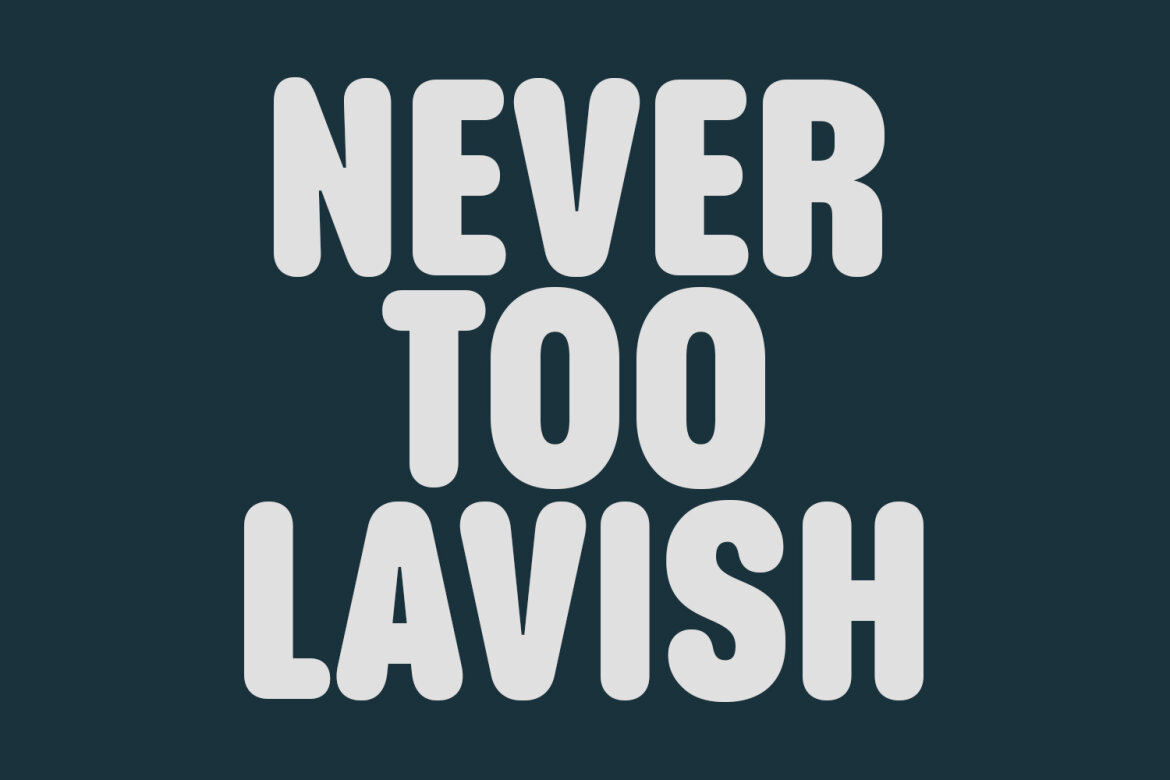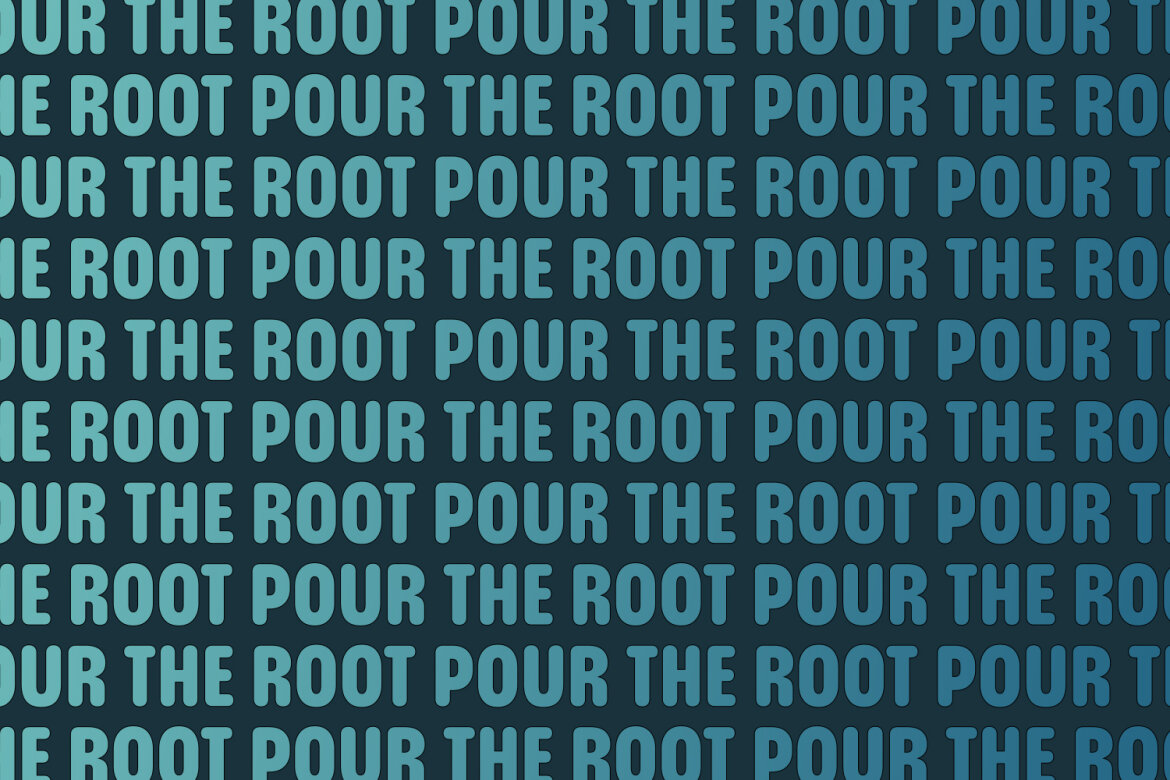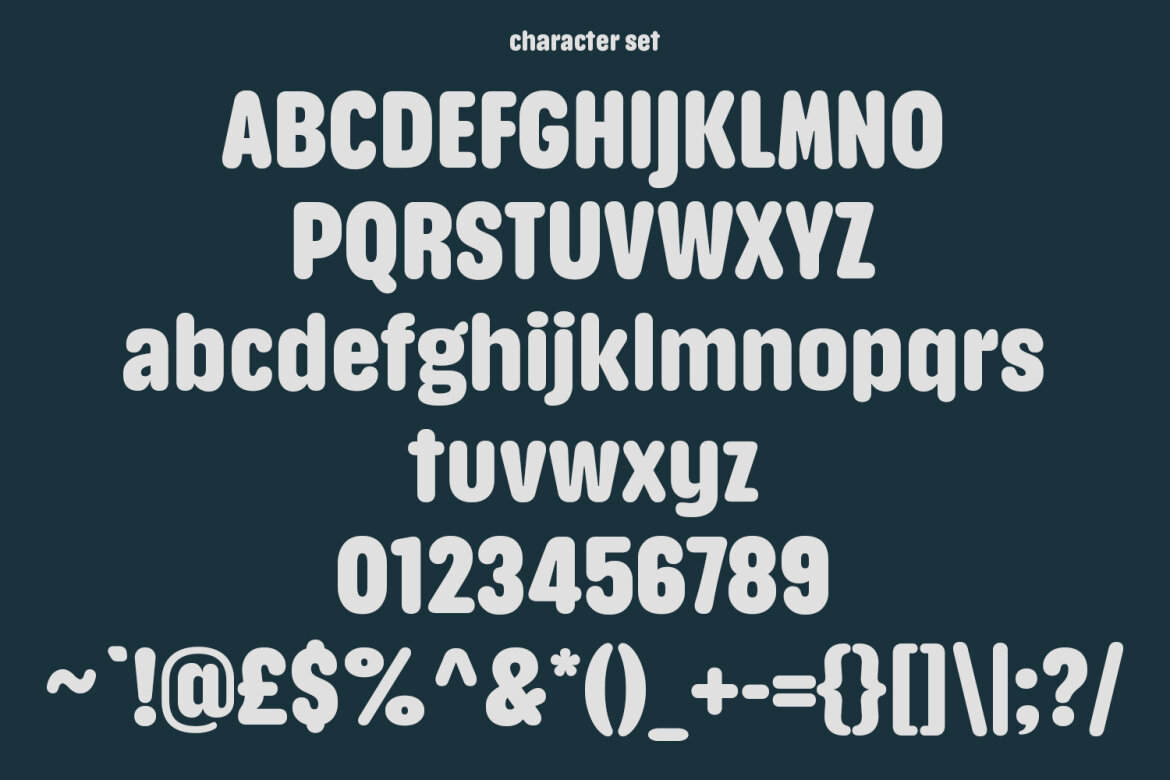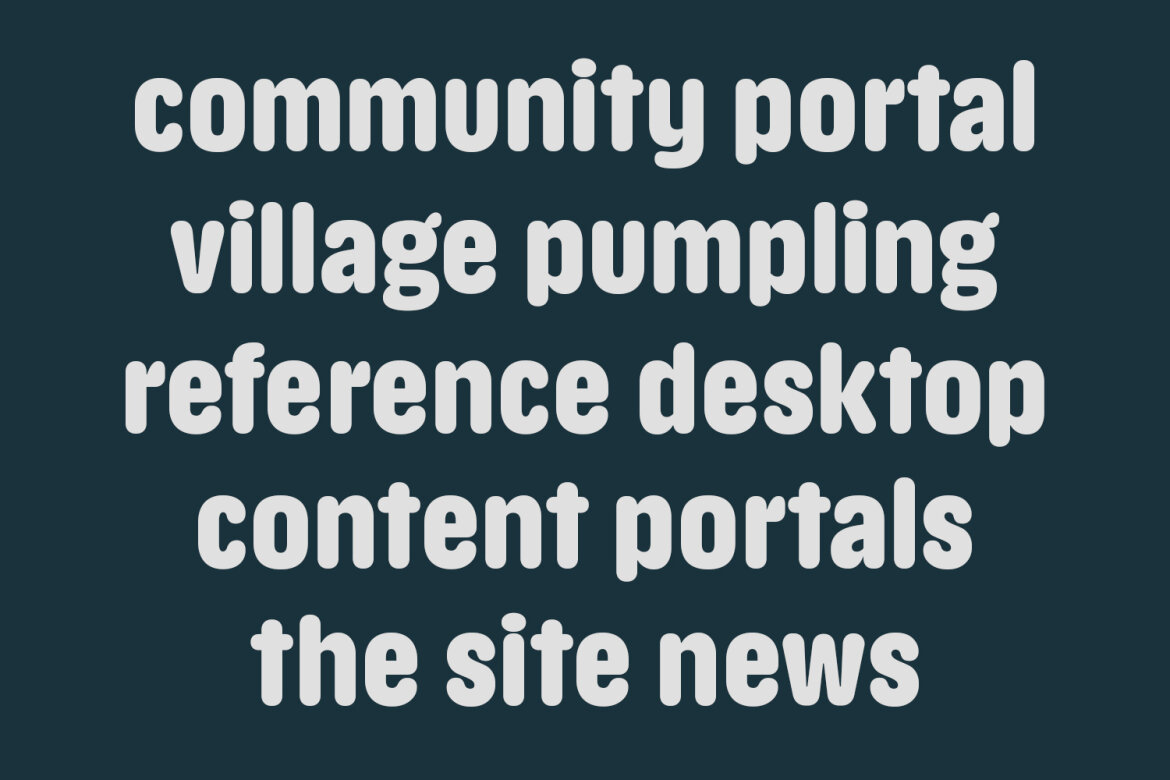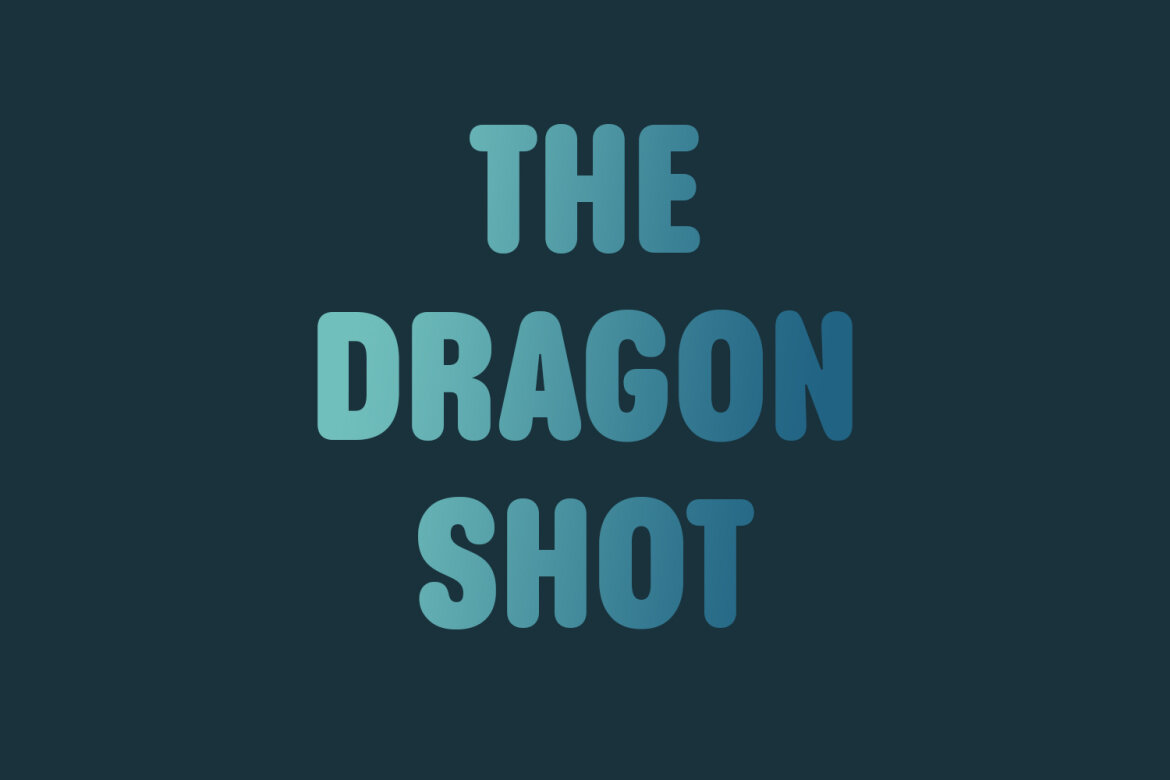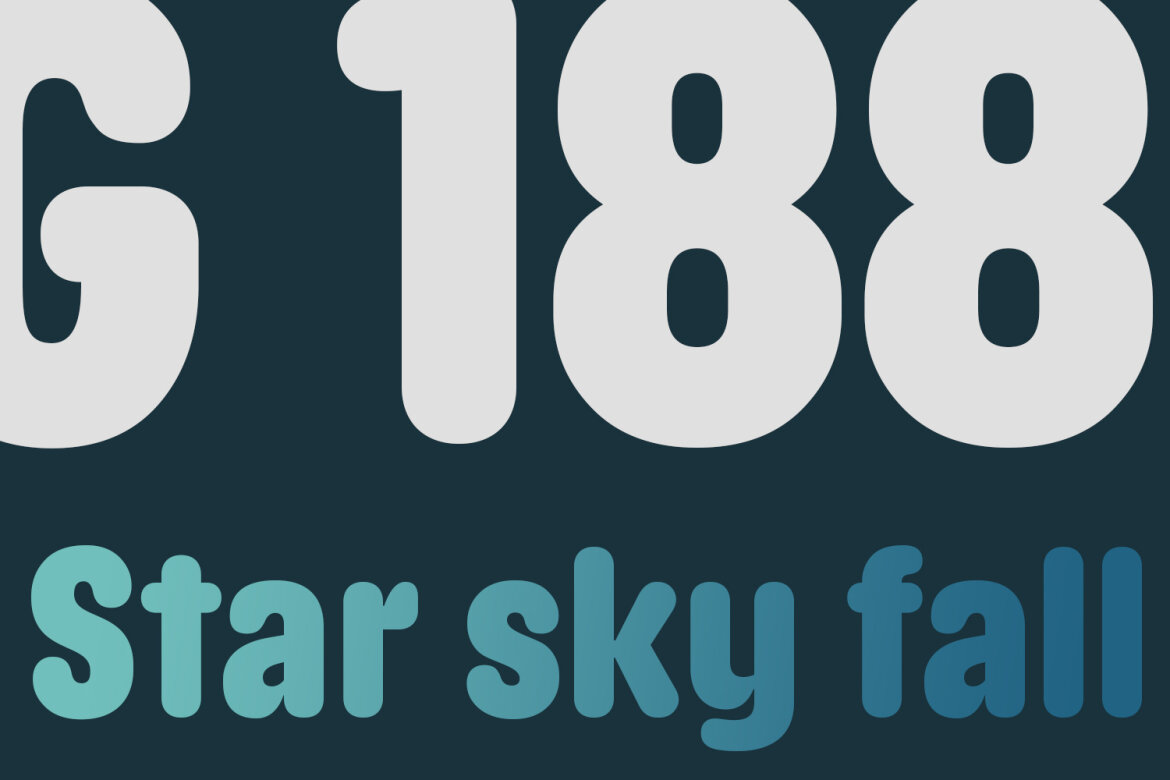
Dargotta Soft Sans FREE Font
Dargotta is a modern fun sans serif font. With bold soft stroke, fun character with a bit of ligatures and alternates. To give you an extra creative work. Dargotta font support multilingual more than 100+ language. This font is good for logo design, Social media, Movie Titles, Books Titles, a short text even a long text letter and good for your secondary text font with script or serif. Make a stunning work with Dargotta font.